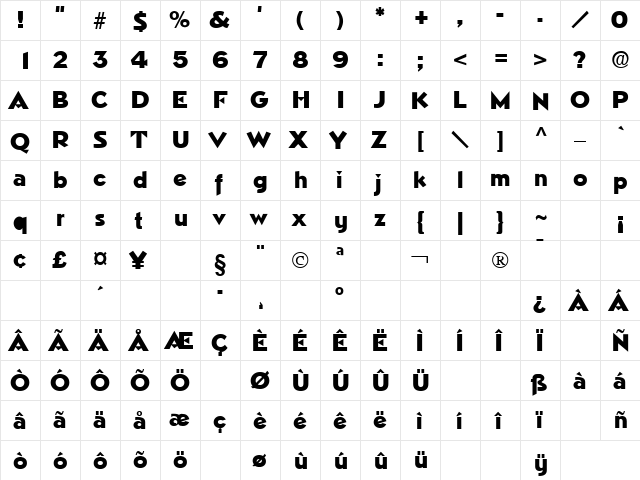
Pythagoras Regular
Design Context for Pythagoras Typeface
Pythagoras is a composed and adaptable typeface that performs quietly and consistently across a wide range of design contexts.